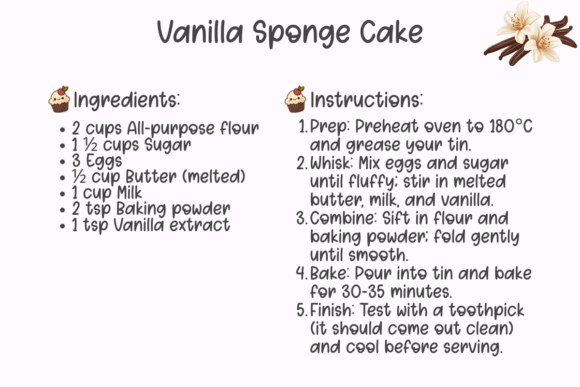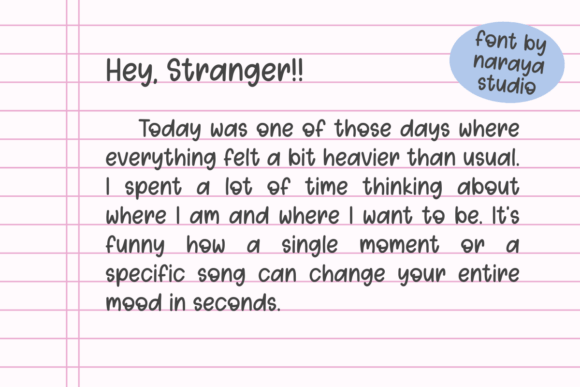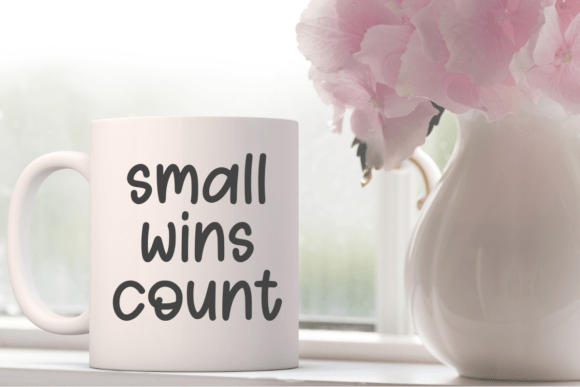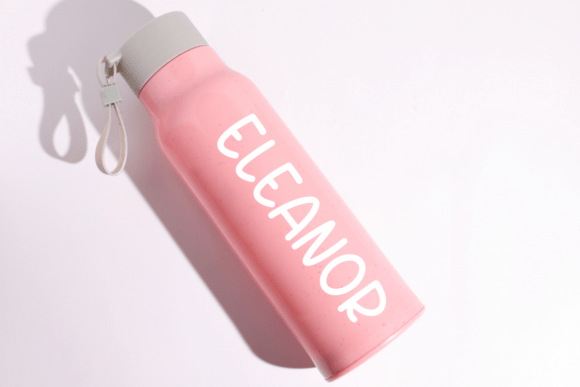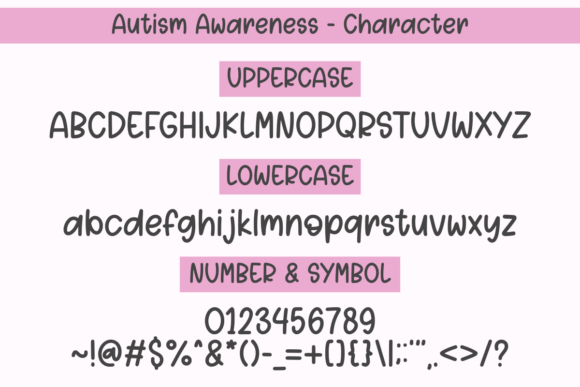
Empowering Messages with Compassion and Care
As a designer, have you ever been inspired by a simple yet powerful font that speaks to the heart of your message? For me, that moment came when I stumbled upon the Autism Awareness Font, a beautiful handwriting font designed to spread awareness and compassion for individuals with autism.
| 📌 Product Name | Autism Awareness Font |
| 👤 Author | Naraya Studio |
This thoughtful typeface features soft, rounded strokes and a friendly rhythm that immediately conveys a sense of care and community. With its high legibility and decorative accents, it’s the perfect tool for designers who want to make a positive impact. Whether you’re working on awareness campaign posters, educational resources, or social media posts, the Autism Awareness Font is a valuable addition to your design toolkit.
By using this font, you can create messages that are both informative and heartfelt, inspiring others to join the conversation and support a great cause.
Key Features of Autism Awareness Font
- Unique Design: The Autism Awareness Font is a specially designed font to raise awareness and support for individuals with Autism Spectrum Disorder (ASD). Its unique design features a puzzle piece, which is a widely recognized symbol for autism awareness.
- Font Family: The Autism Awareness Font is a sans-serif font family with a clean and modern design, making it suitable for a wide range of applications, including digital and print media.
Designer Review: Autism Awareness Font
The Autism Awareness Font is a typeface designed to raise awareness and understanding of autism spectrum disorder. I’ll be honest, my initial reaction was mixed, but after taking a closer look, I found some redeeming qualities. ✨
- The font’s unique design elements, such as the puzzle piece icon and the colors used, are indeed eye-catching and thought-provoking.
- The font’s intent is admirable, and it’s clear that the designer aimed to create a typeface that would spark conversations and raise awareness.
- The font’s versatility in digital and print applications is also a plus.
However, there are some limitations that prevent me from giving it a glowing review. ⚠️
- The font’s design can come across as gimmicky or attention-seeking, which may detract from its intended message.
- The font’s usage may be restricted due to its potential misuse or misrepresentation of autism.
- The font’s overall aesthetic may not appeal to everyone, which could limit its effectiveness as a awareness-raising tool.
Overall, the Autism Awareness Font is a polarizing design that sparks both interest and criticism. While it’s a thought-provoking creation, its limitations and potential drawbacks prevent me from fully endorsing it.
To get the most out of the Autism Awareness Font, use it in conjunction with other awareness-raising graphics and images. Consider using it for social media posts, flyers, and posters.
The Autism Awareness Font is commonly used for:
- Social media posts and awareness campaigns
- Graphic design projects, such as flyers and posters
- Business cards and promotional materials
- Education and training materials